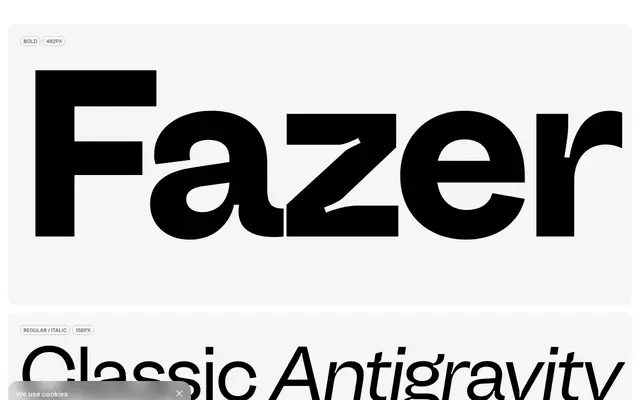
Fazer
A geometric sans by Abel Martins with a broad Latin character set, several stylistic alternates and Thai script support across 18 styles.
Designed by Abel Martins and released in 2025, Fazer spans 18 styles with weights from Regular to Black, each accompanied by italics revised in a 2026 update. The family carries extensive Latin Extended coverage across dozens of languages, and its character set stretches into Greek and Thai. Five stylistic sets offer alternate forms for characters including the single-storey 'a', 'g' and 'i', giving designers room to shift between strictly geometric and softer, more open registers.
The letterforms shown — particularly the circular bowls, even stroke weight and clean terminals — point to a geometric sans. Stylistic alternates for characters like 'a', 'g' and 'i' confirm a geometric foundation with humanist-leaning options.